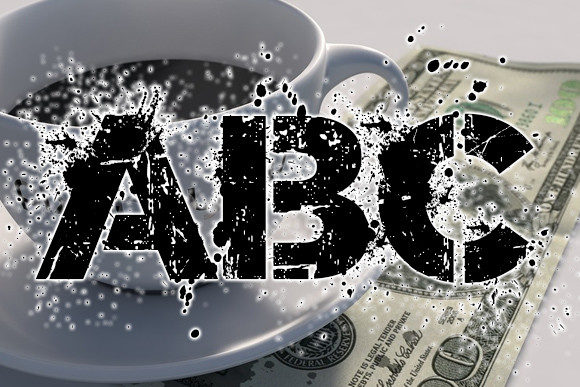
Introduction to Drunk Millionaire Font
Drunk Millionaire is a fun, rough textured and bold display font.
It will look stunning on any poster flyer or print Use this font for your designs and explore its endless possibilities.
Key Features of Drunk Millionaire Font
Why Choose Drunk Millionaire Font?